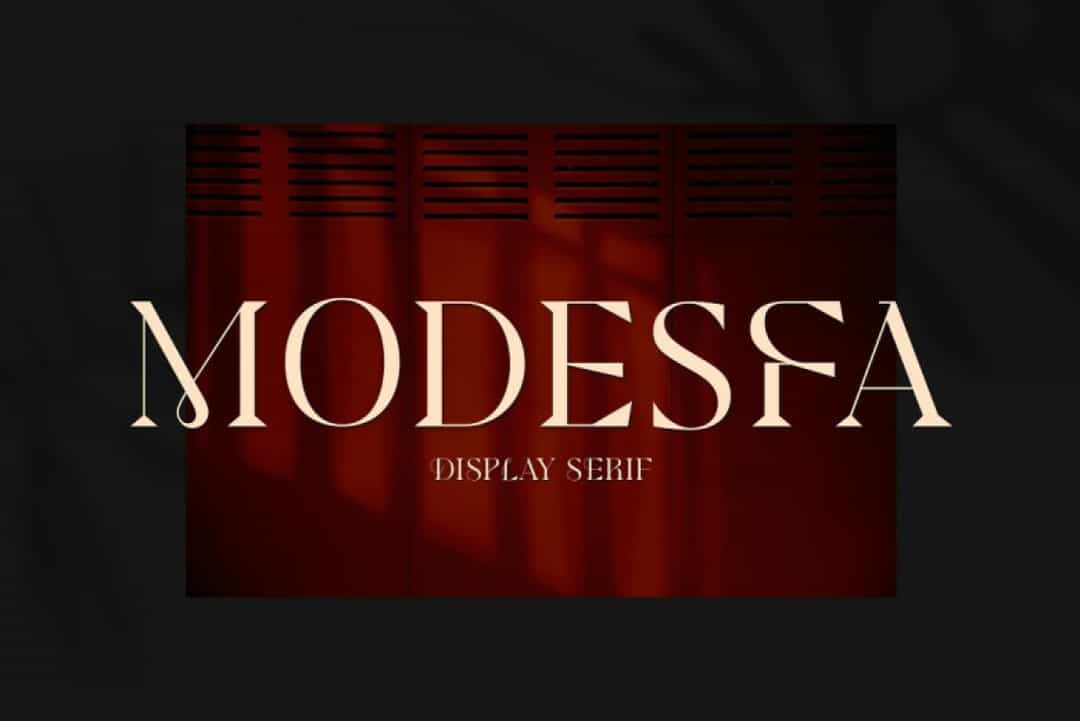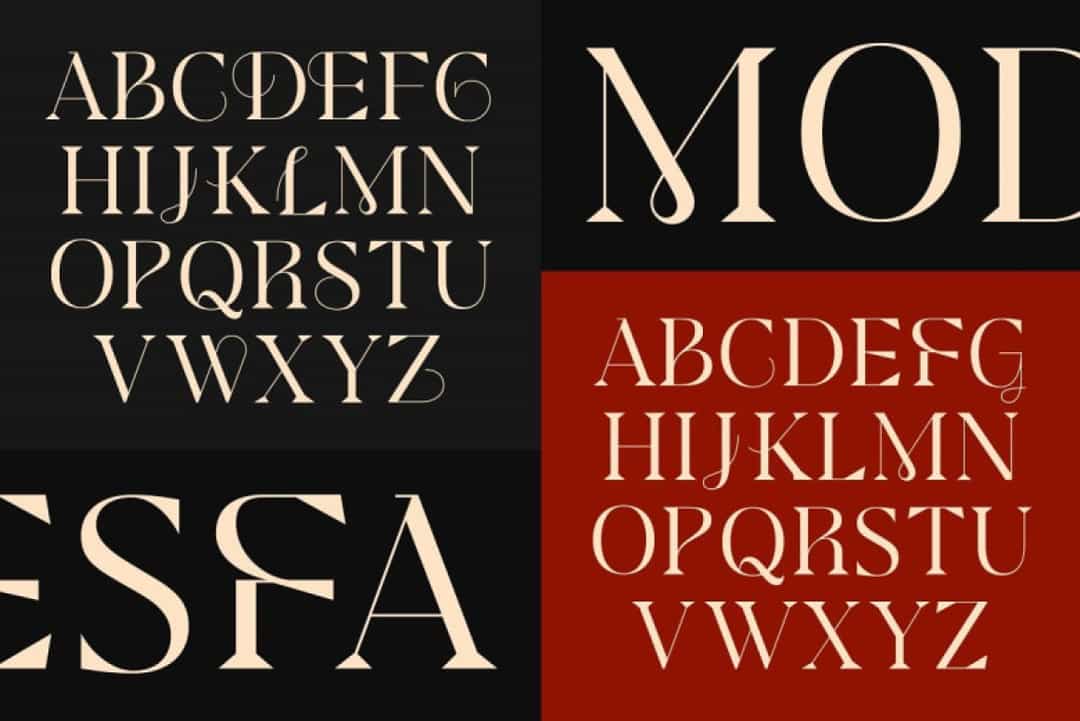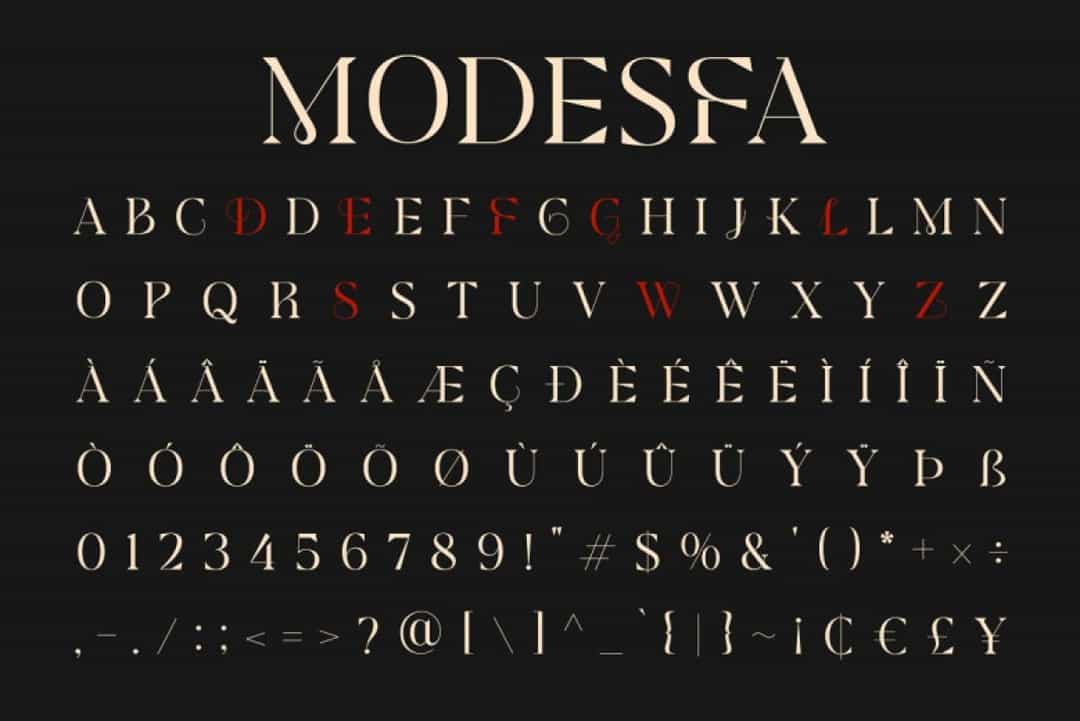
Discover Modesfa Font, part of the Serif Display collection—a versatile and unique font perfect for adding a personal touch to your projects. Download it for free and enjoy crafting designs with style, from invitations to social media posts. This font is available exclusively for personal use, giving you the freedom to create without limits. Unlock your creativity with Modesfa Font today!
Introduce Modesfa Contemporary Display Serif font. Inspired by its minimalist logo of the same name, this font can be used for creating templates, brochures and videos as well as branding logos for advertising logos – as well as many other projects!